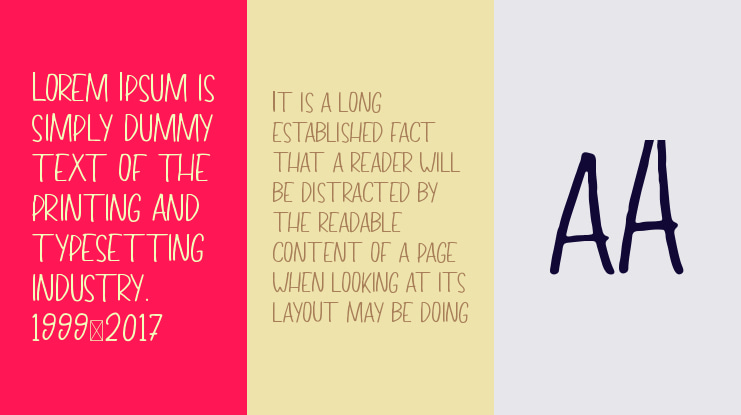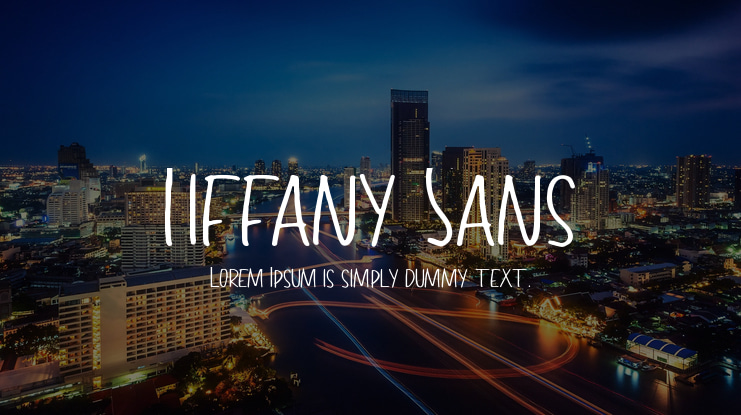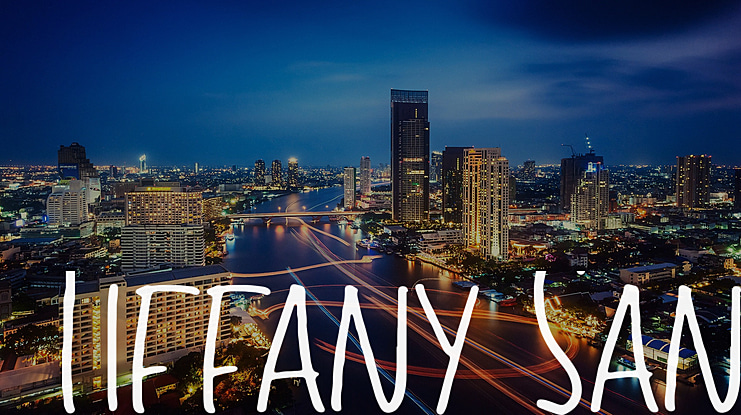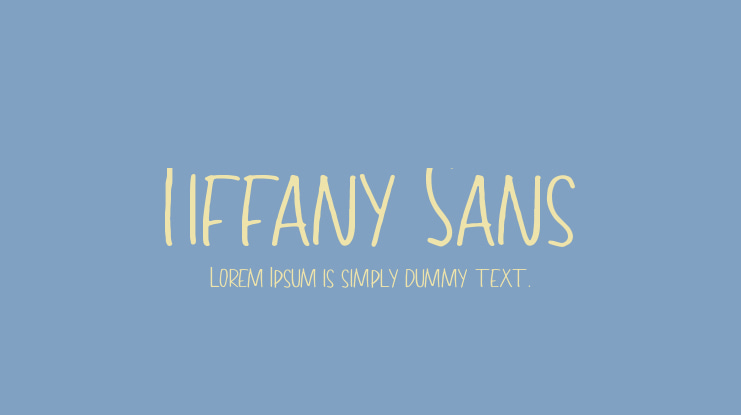
Tiffany Sans Font Family
"Tiffany" is a font with natural representation as a handwritten construction, featuring a straightforward, simple, elegant and very beautiful character.